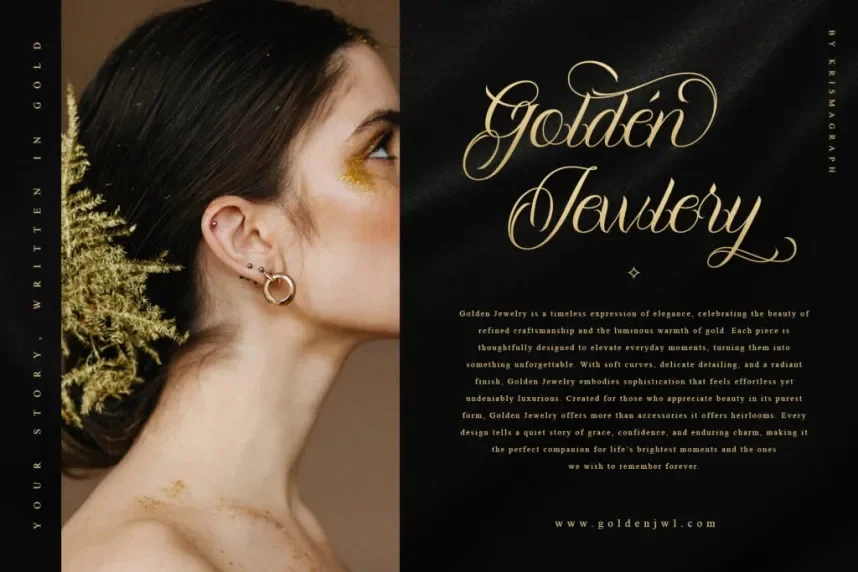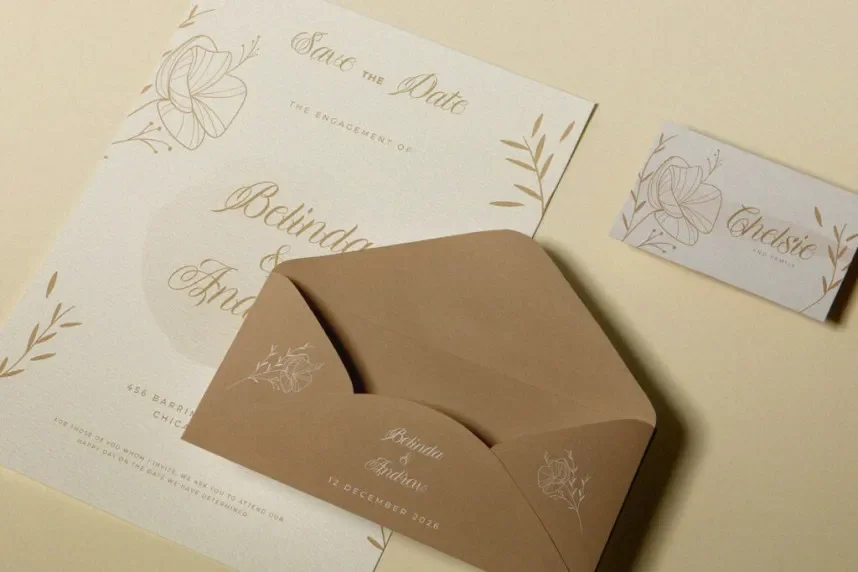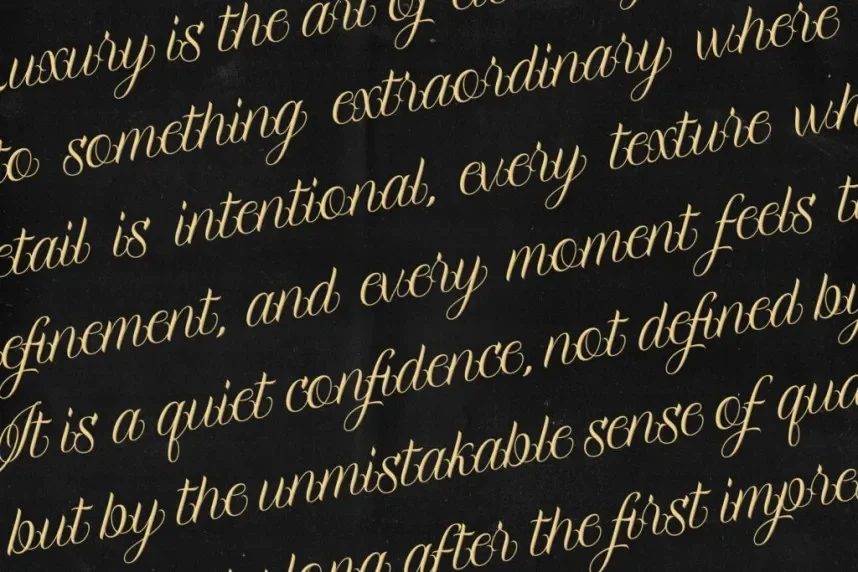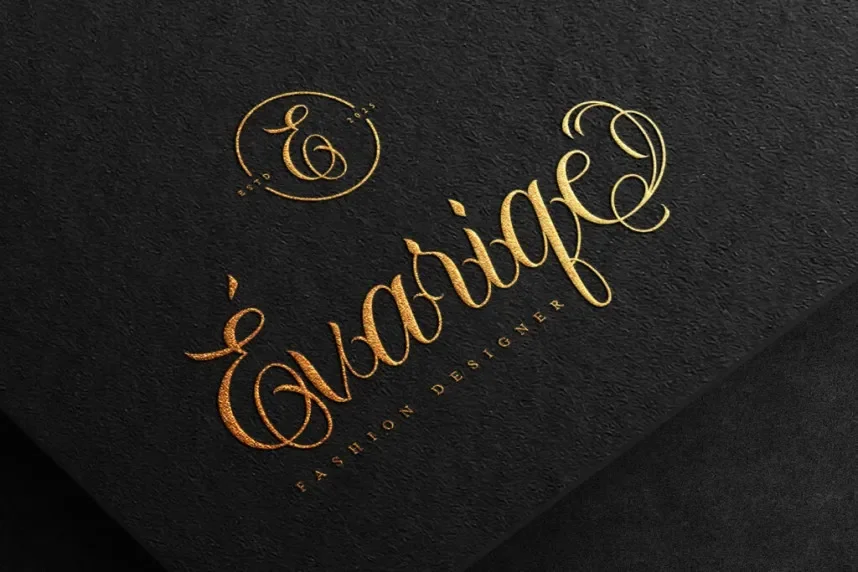
Whispers Font is an elegant calligraphy script with flowing letterforms and delicate swashes. Its sophisticated design makes it perfect for luxury branding, wedding invitations, and projects that require a refined, artistic touch.